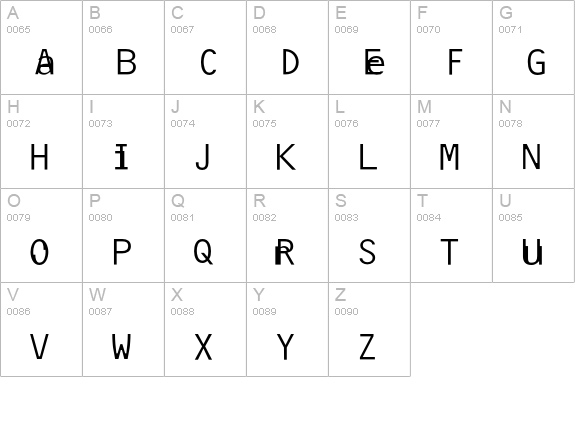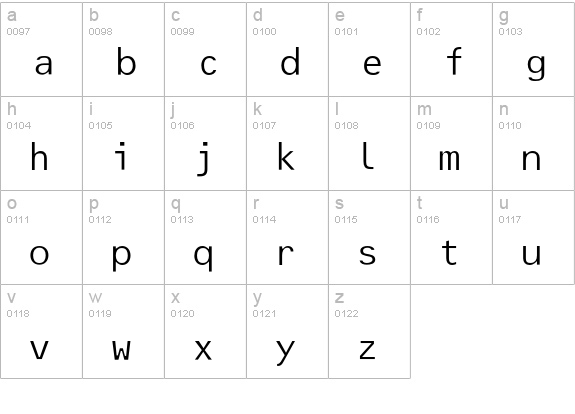
OCROver Font Details
Introducing OCROver font, a versatile and modern typeface that combines the sleekness of OCR fonts with a touch of elegance. Designed to be both functional and stylish, OCROver is perfect for a wide range of design projects, from branding to editorial layouts. This unique font features clean lines and a contemporary feel, making it ideal for creating eye-catching headlines or adding a modern touch to your designs. With its balanced letterforms and subtle geometric elements, OCROver exudes sophistication and professionalism. What's more, OCROver is available for free download at FontsMarket.com, allowing you to easily incorporate this stylish font into your projects without breaking the bank. Don't miss out on the opportunity to enhance your designs with the sleek and versatile OCROver font today!